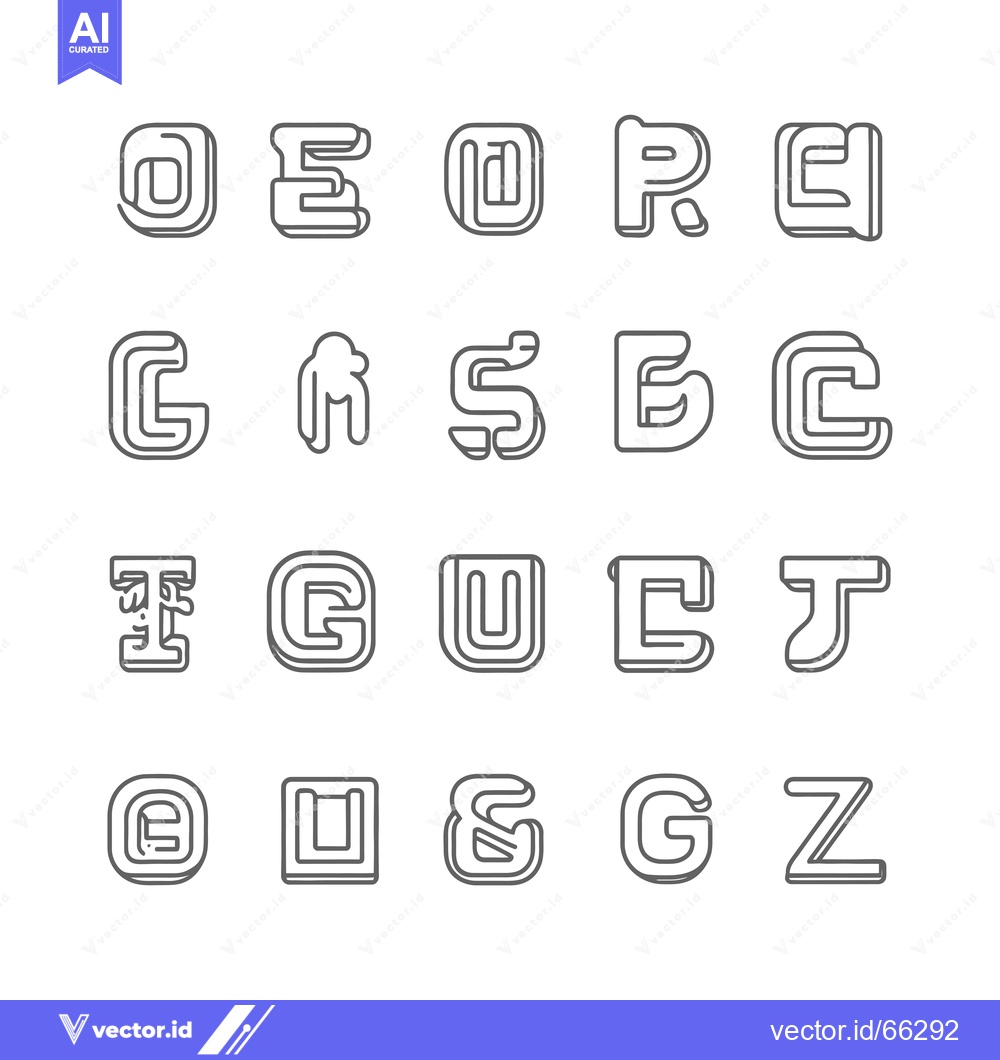
Alphabet Letters Font Design Graphic Elements.
A collection of stylized alphabet letters, presented as graphic design elements with a unique font style.